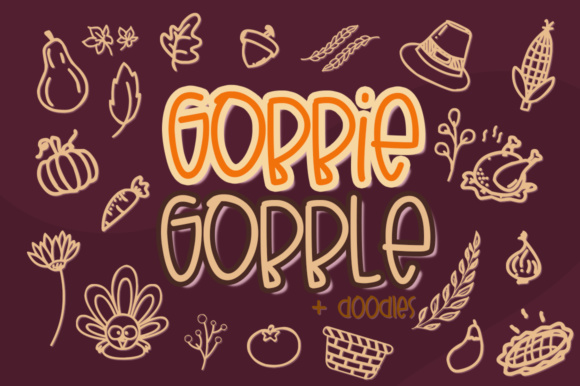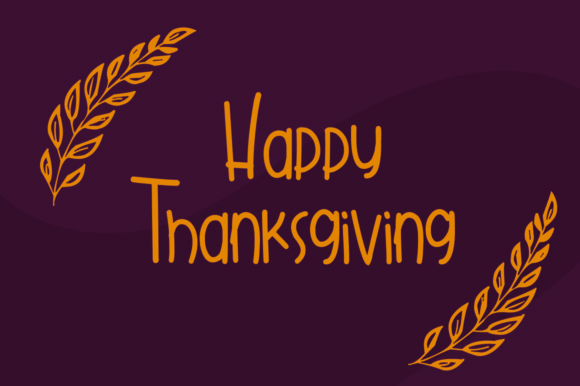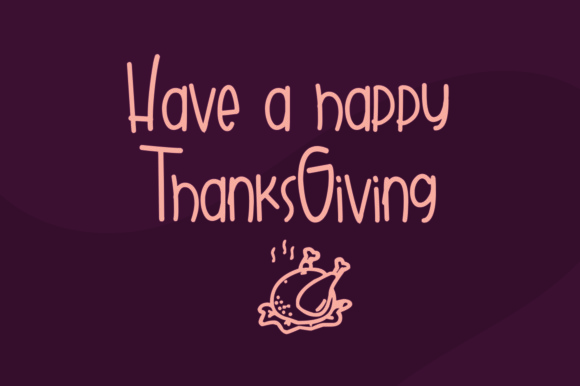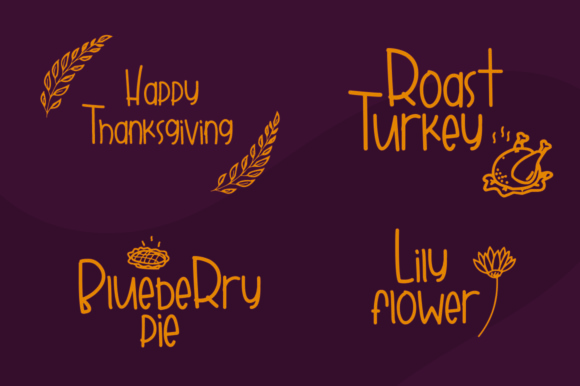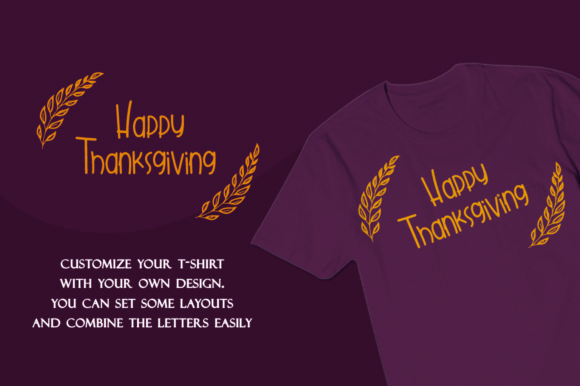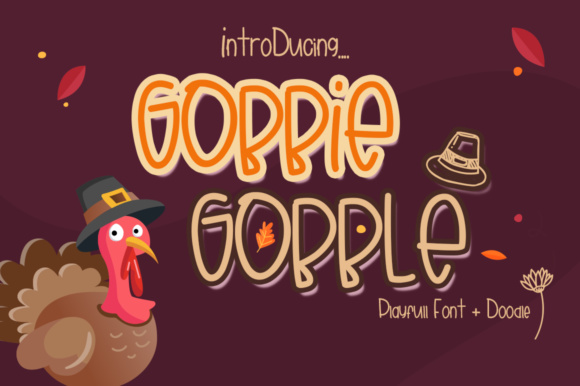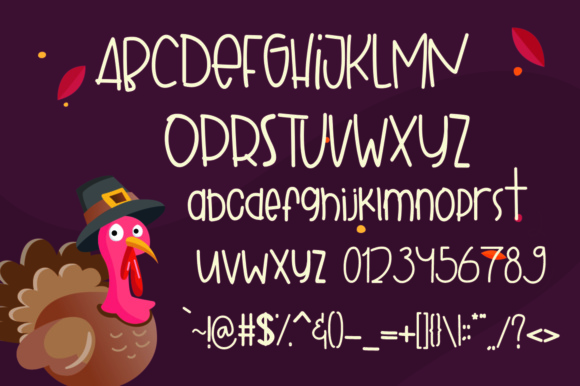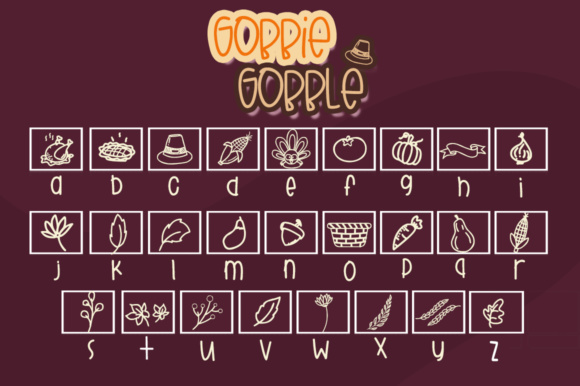
Gobbie Gobble is a warm, handwritten, thanksgiving font.
This playful font is perfect for your special moments. Also included are thanksgiving themed doodles to beautify your designs.